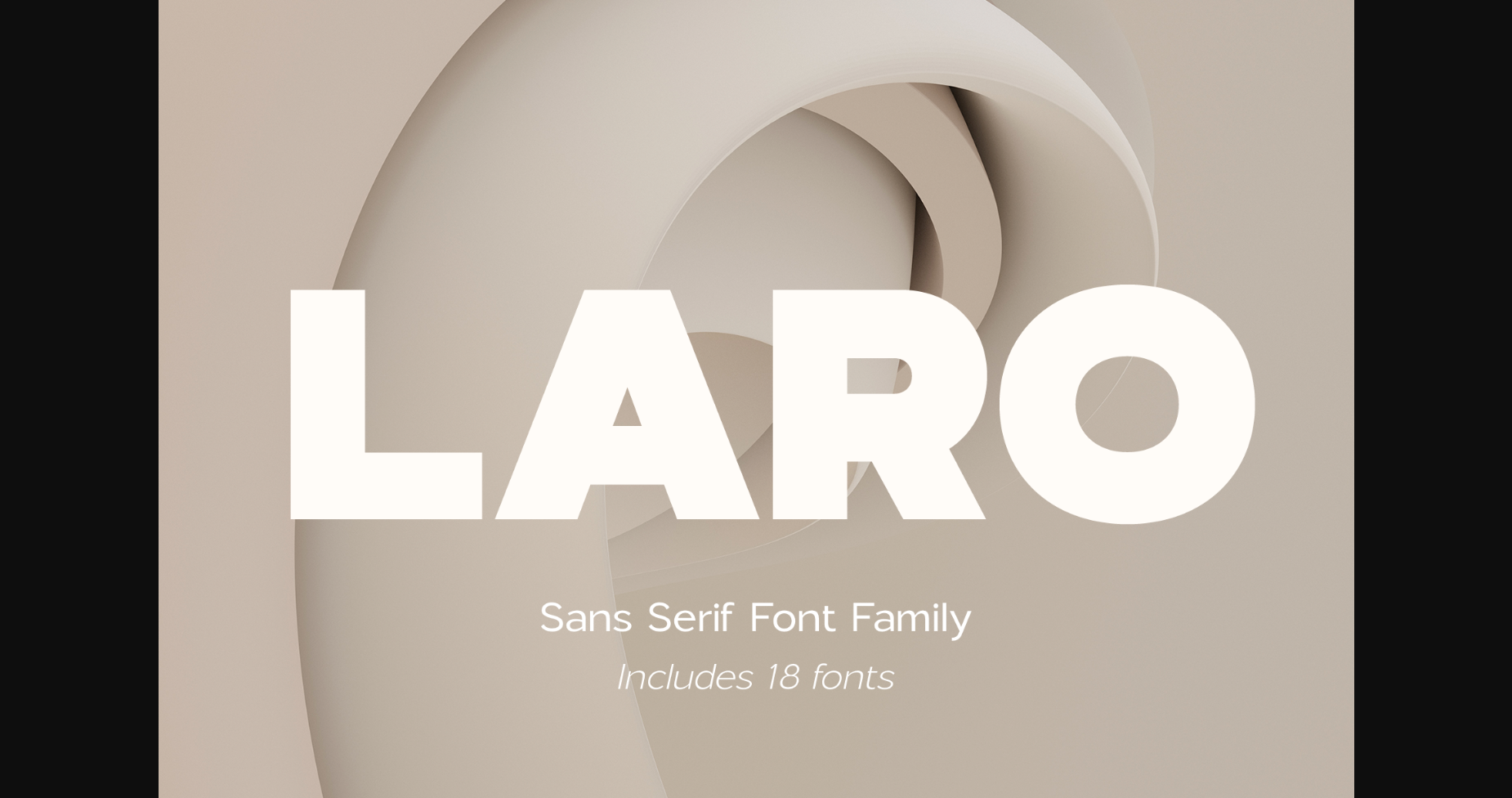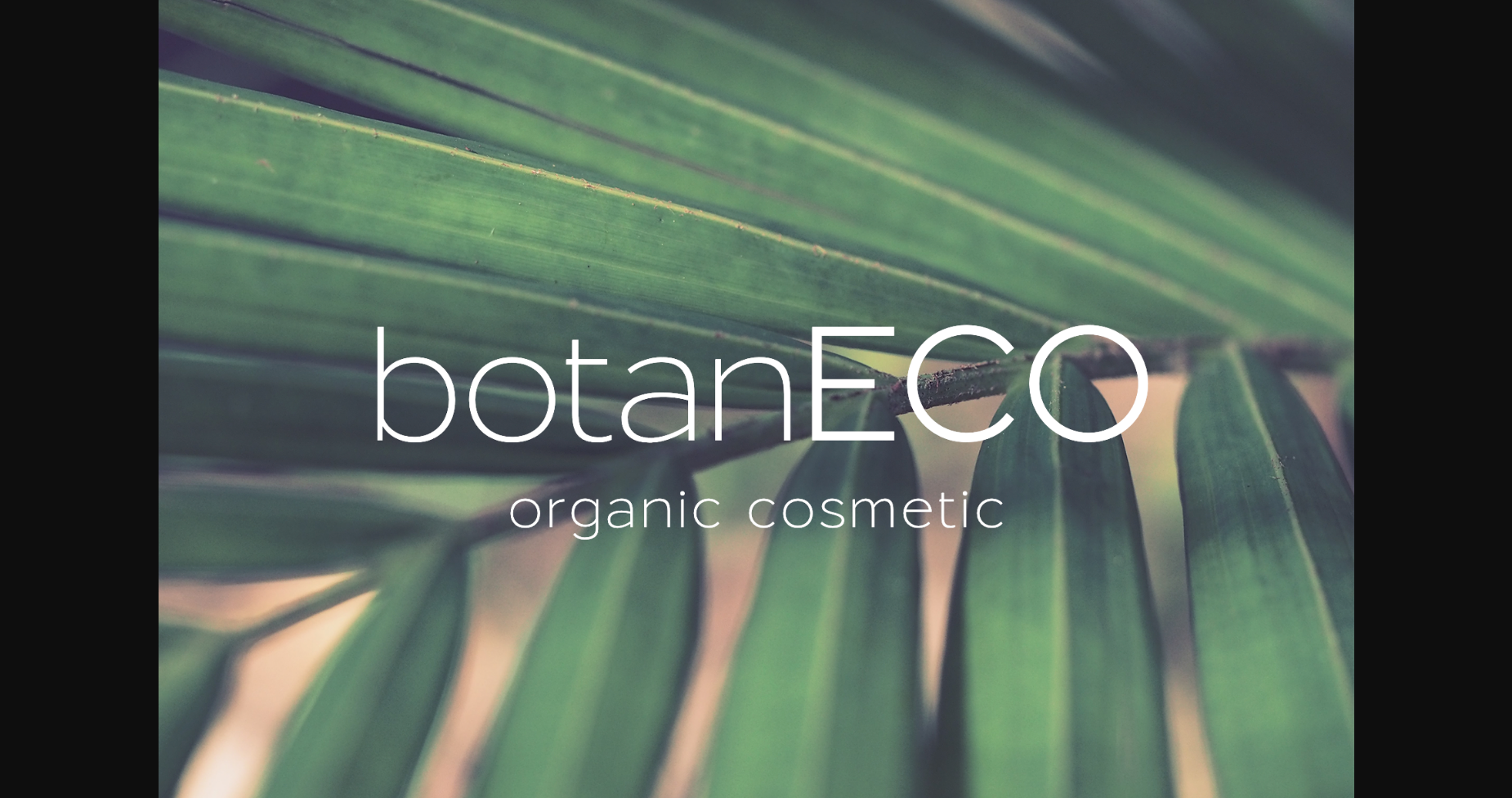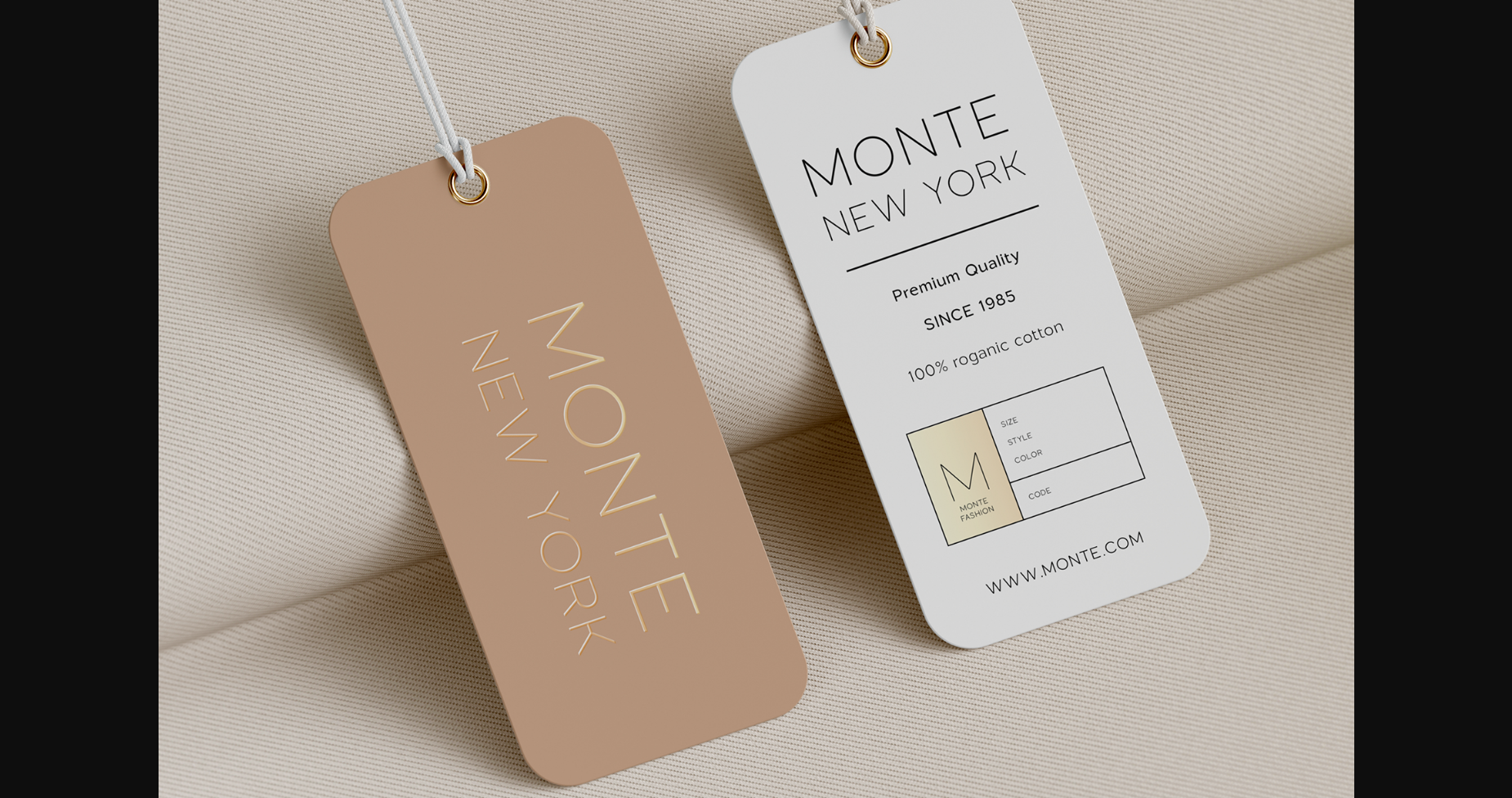
About Laro Font
Laro is a simple and thick lettered sans serif font. It will elevate a wide range of crafting ideas, from cards, to branding, labels and much more.